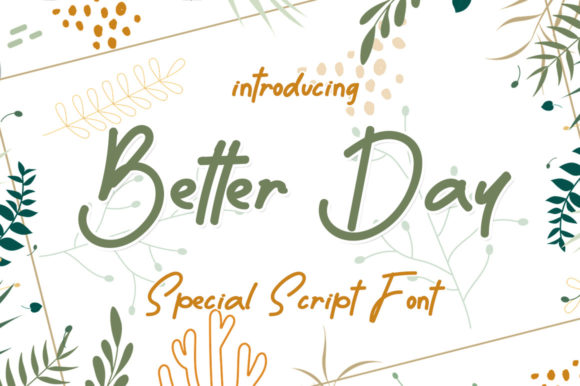
Better Day Font
About Better Day Font
Better Day is a lovely and delicate script font that exudes elegance and class. This font was particularly crafted for those who need a beautiful and refreshing look to their designs.